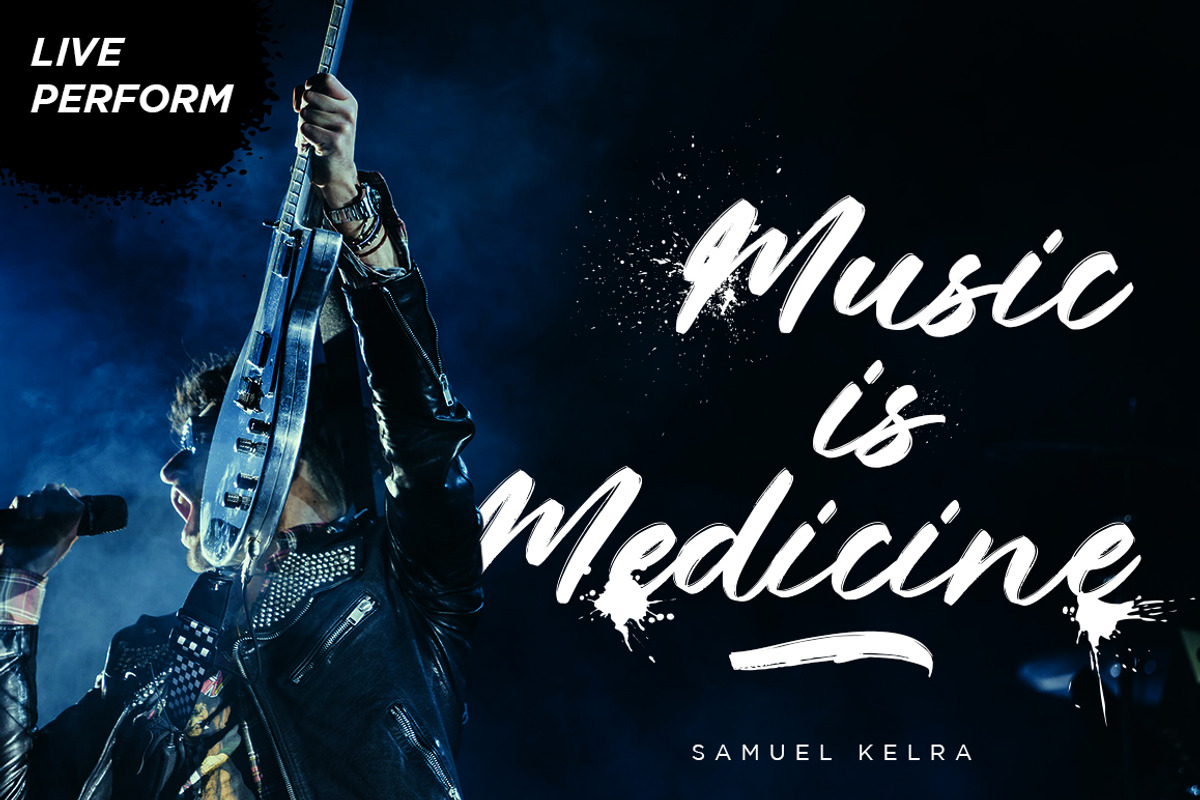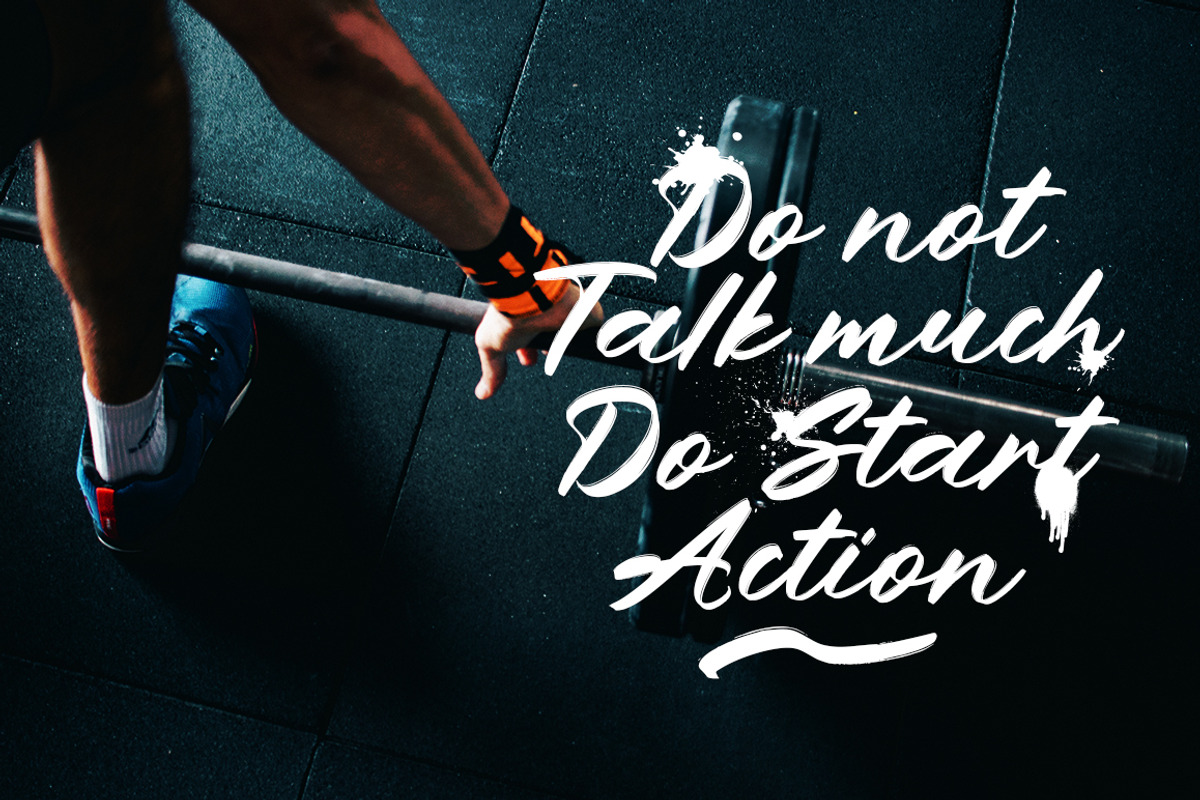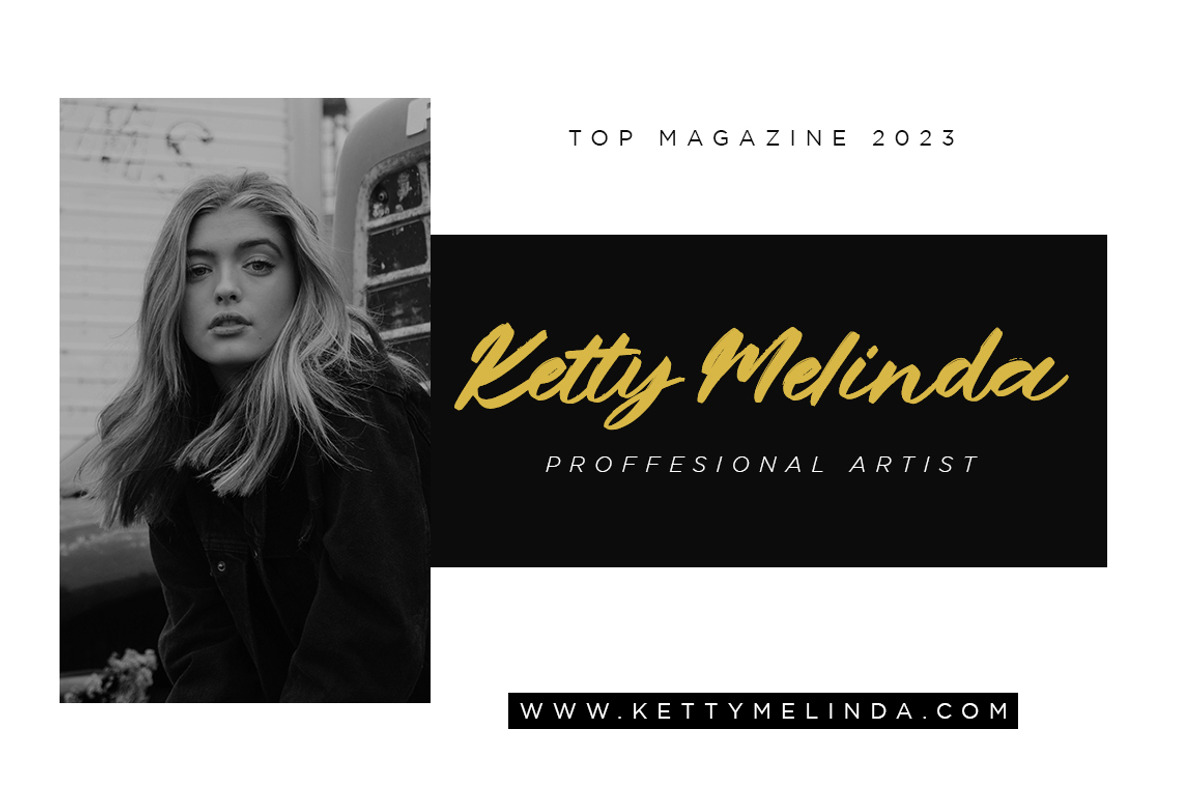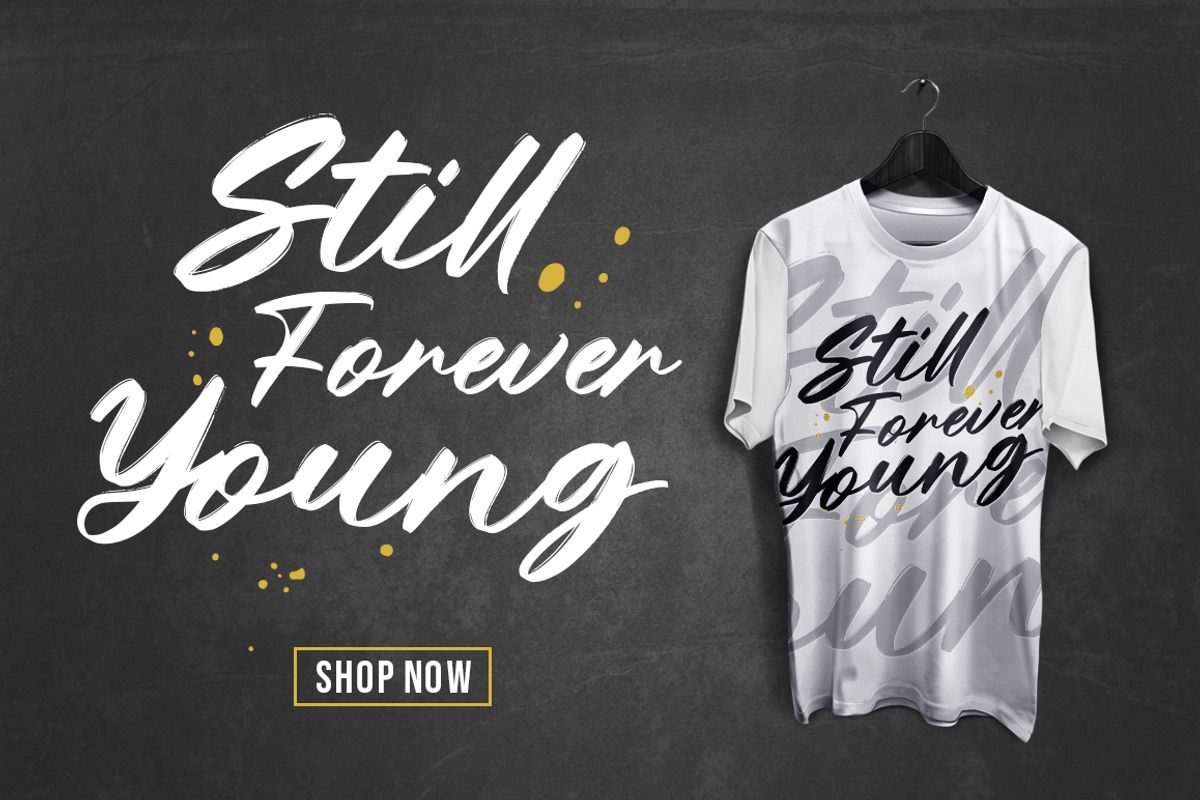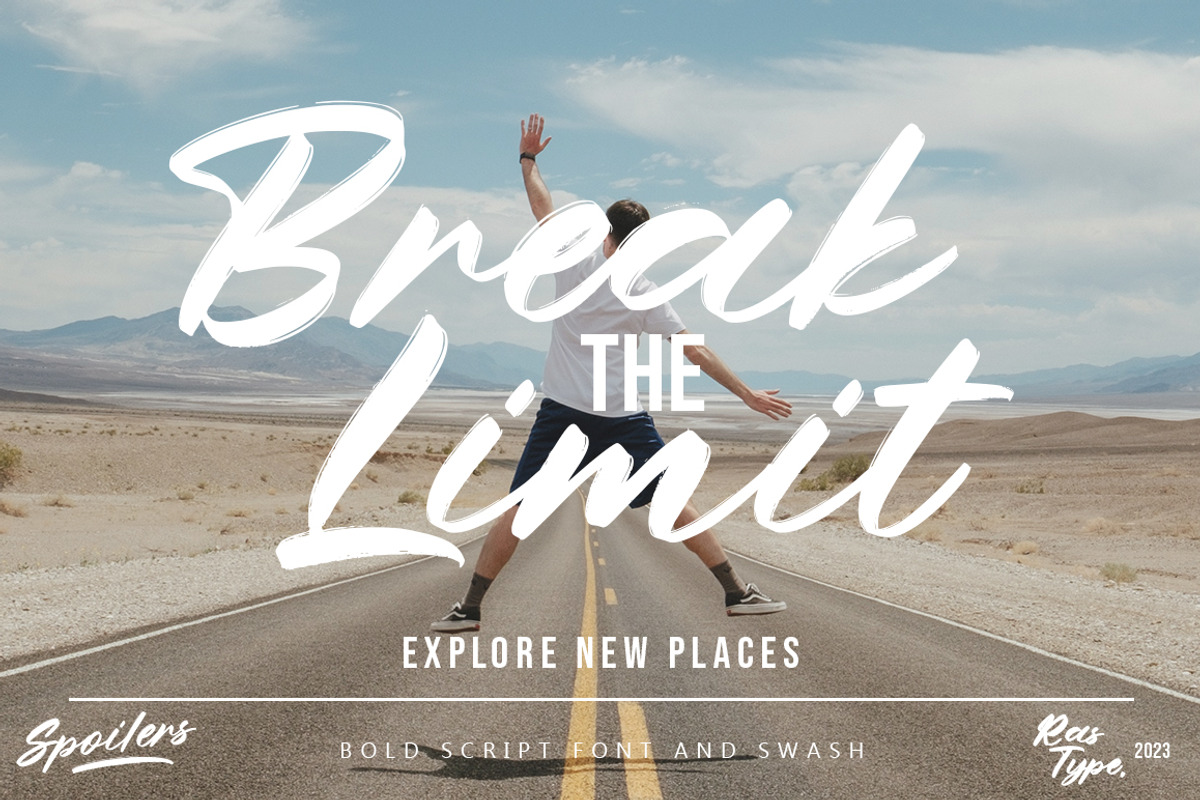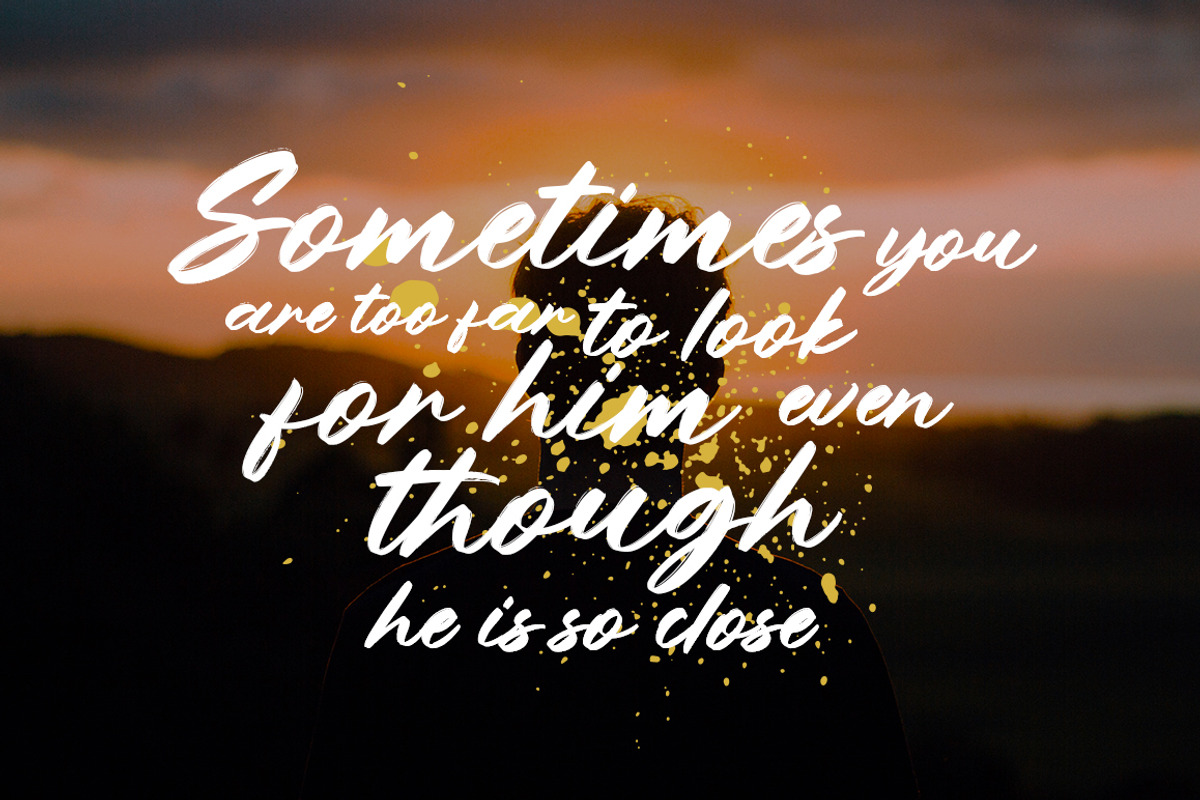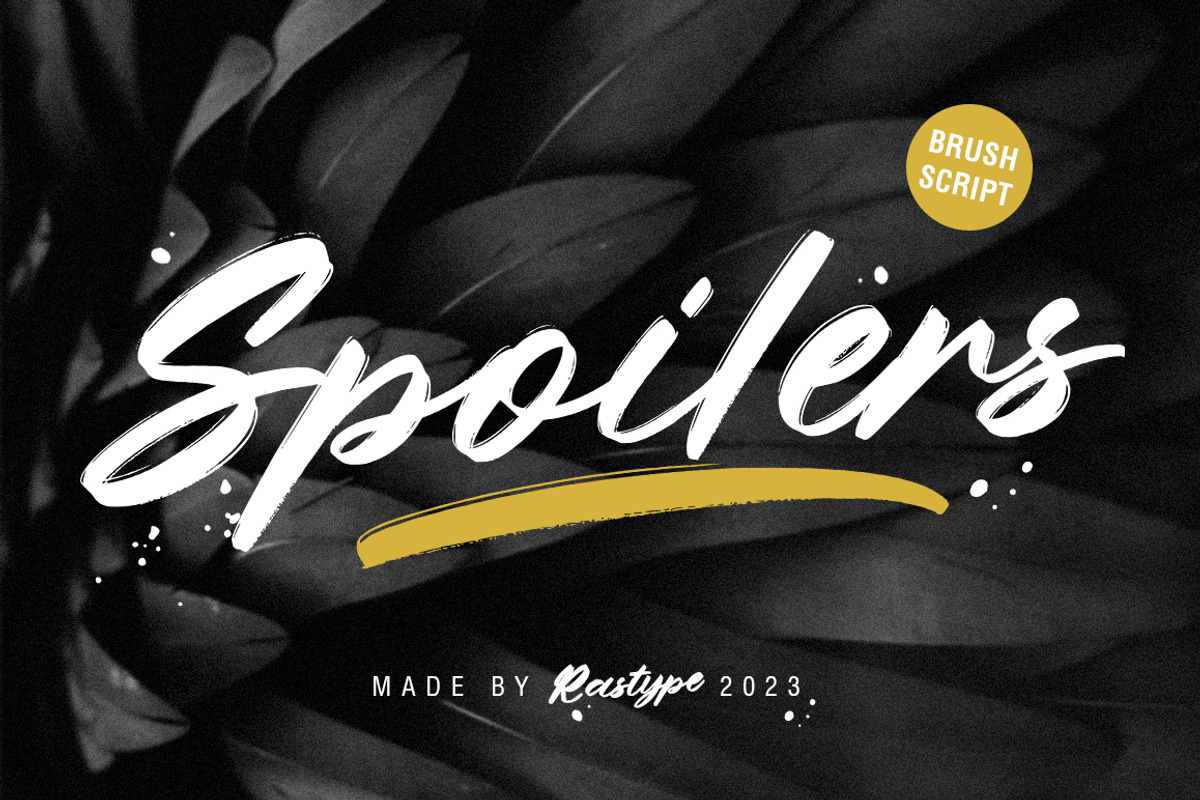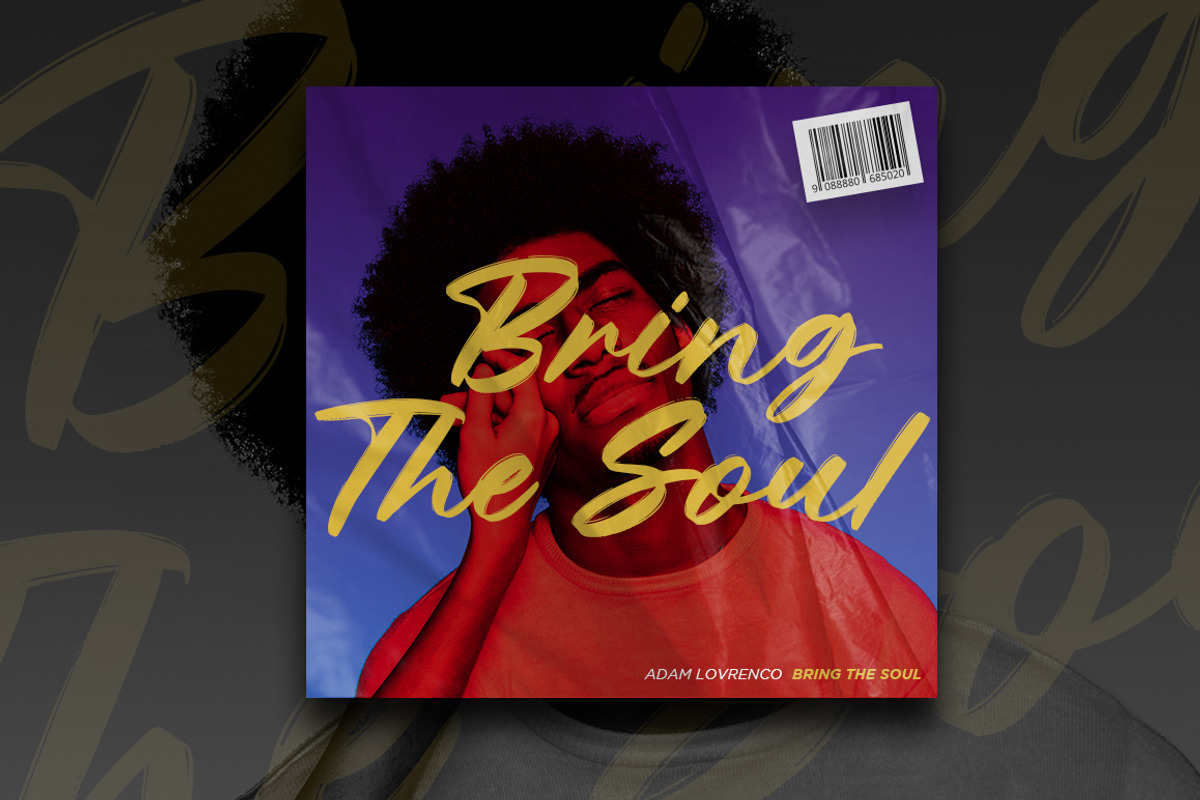
Spoilers Script
Spoilers Script is a textured brush font, with natural handcraft and underlines and ligatures that make your designs more interesting. Suitable for use in designs, such as clothing, invitations, book titles, stationery designs, quotes, branding, logos, greeting cards, t-shirts, packaging designs, posters and more.
The font includes OpenType features with ligature styles and multi-language support.